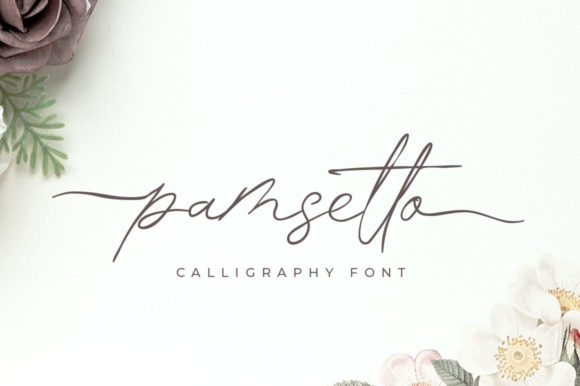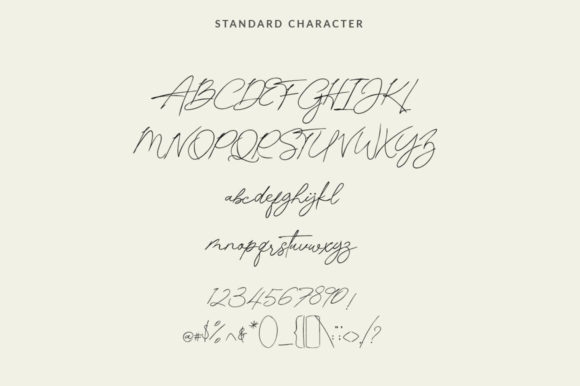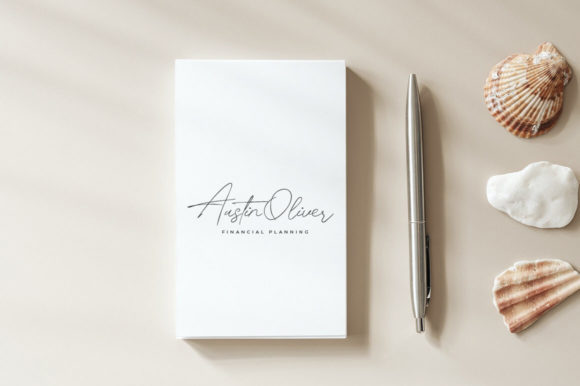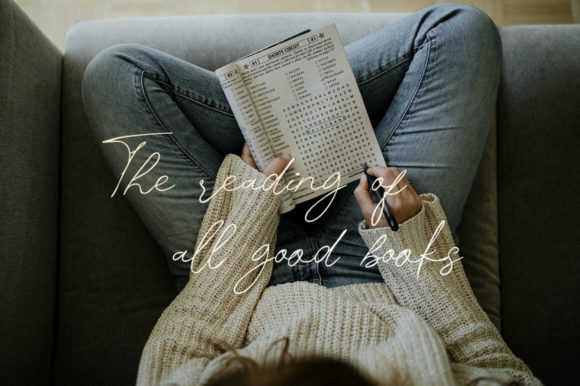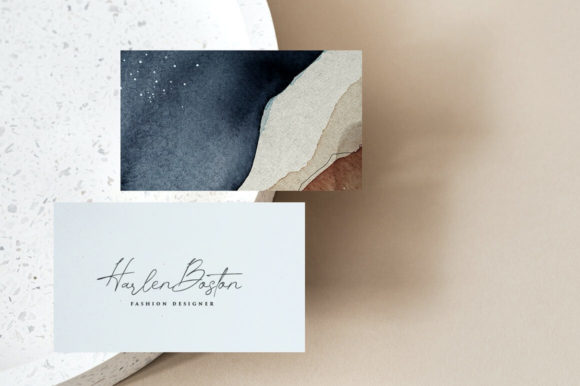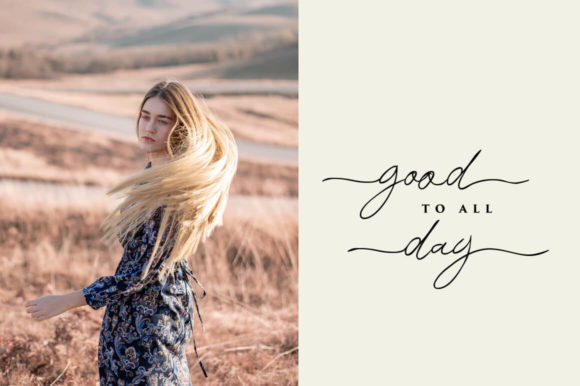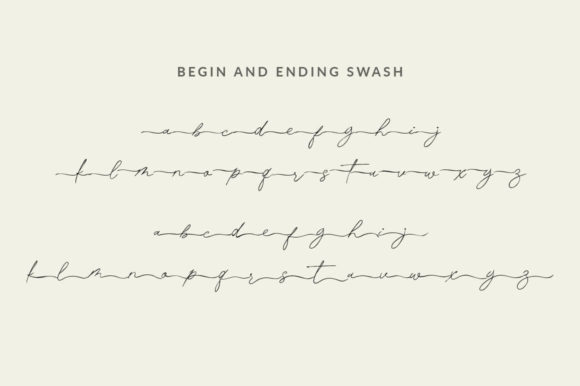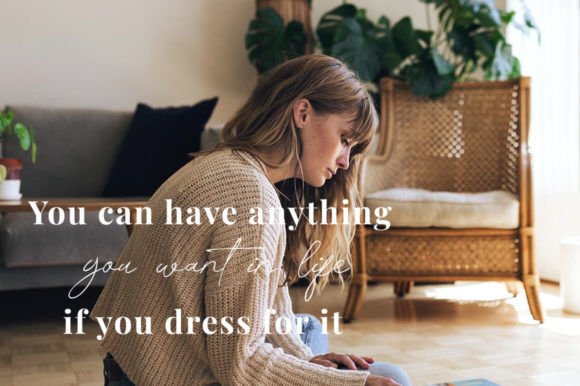
Pamsetto Font
About Pamsetto Font
Pamsetto is a romantic and dreamy handwritten font. It looks stunning on wedding invitations, thank you cards, quotes, greeting cards, logos, business cards and every other design which needs a handwritten touch.